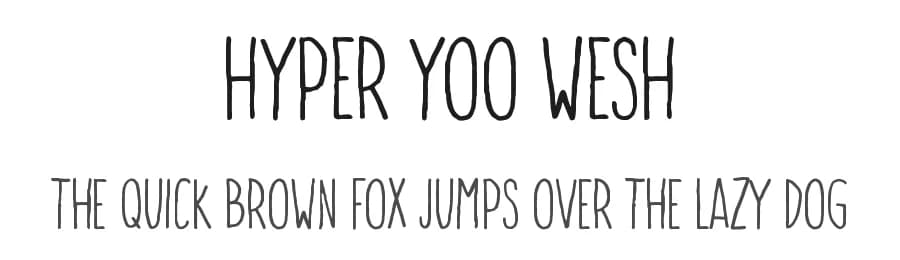
About Hyper Yoo Wesh Font
Hyper Yoo Wesh is a script & handwritten font designed by Bisou. It includes 211 glyphs, a regular weight, TTF (TrueType) format, and 211 languages. Hyper Yoo Wesh is free to download; check the license details on this page before commercial use. Script & handwritten fonts like Hyper Yoo Wesh work best for wedding invitations, greeting cards, signatures, and elegant branding.
Hyper Yoo Wesh Font is a script font that shines as a display or heading face. Pair it with a clean sans-serif or serif font for body text β the contrast creates a clear hierarchy while the two styles stay balanced and easy to read.